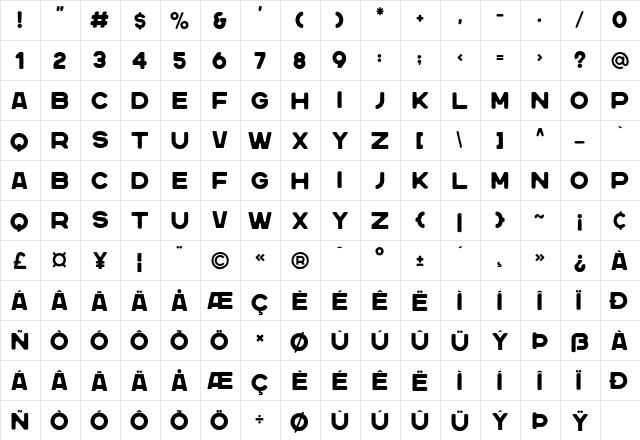
Nersans Three Regular
| Foundry | Garisman Studio |
| Designer | Risman Ginarwan |
Design Context for Nersans Three Typeface
Nersans Three is a composed and adaptable typeface that performs quietly and consistently across a wide range of design contexts.
Pro Tip: Pair Nersans Three with a font of contrasting weight or personality to build a more expressive typographic hierarchy.